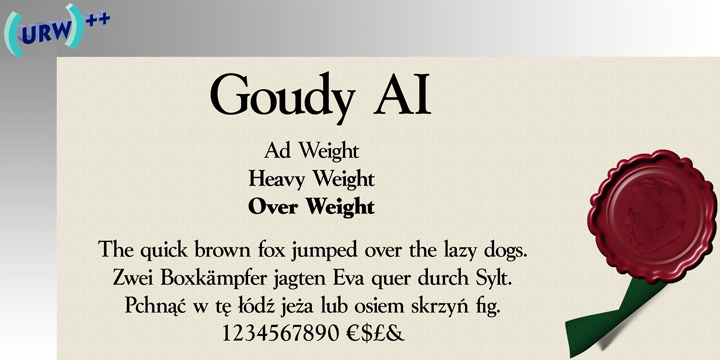
Goudy AI Font is perfect for intelligent technology branding, academic research publications, scholarly AI documentation, innovative machine learning presentations, sophisticated data science materials, advanced research communications, intellectual property marketing, cutting-edge algorithm promotions, academic AI conferences, and futuristic educational technology.
What makes Goudy AI Font exciting is its intellectual sophistication that perfectly captures the scholarly wisdom and technological advancement found in artificial intelligence research and academic innovation. This typeface features classical letterforms enhanced with AI-inspired proportions and intelligence details that bridge traditional scholarly typography with modern technological excellence. The font's academic personality and AI authenticity make it ideal for technology brands seeking to convey intelligence, scholarly credibility, and the sophisticated research that comes from advanced AI development and academic technological innovation.
Goudy AI Font family includes intelligent weight variations and AI-inspired alternatives that enhance its technological appeal while providing design flexibility for academic and AI applications. The font features scholarly ligatures, AI-themed ornaments, and intelligent character variations that create authentic research atmosphere for AI and academic technology branding.
AI research institutions and technology companies consistently choose Goudy AI Font Free Download for projects requiring authentic academic appeal and AI credibility. The font's intelligent character excels in applications targeting researchers, academics, and technology professionals who appreciate genuine scholarly tradition combined with cutting-edge AI innovation. Whether you're designing for AI research labs, academic institutions, or advanced technology companies, this sophisticated typeface delivers the AI authenticity and scholarly elegance that resonates with audiences seeking genuine intellectual advancement and the scholarly rigor that defines artificial intelligence research and academic technological excellence.